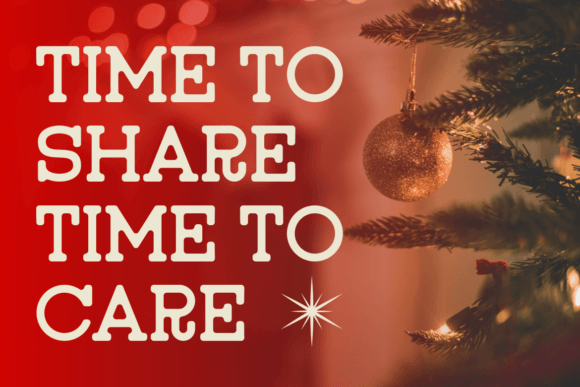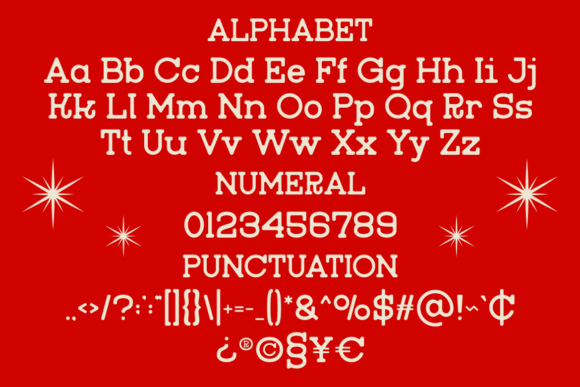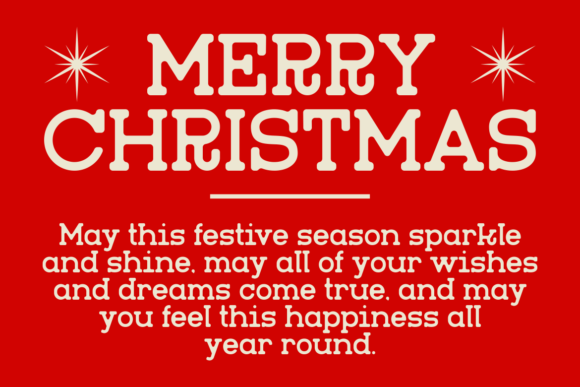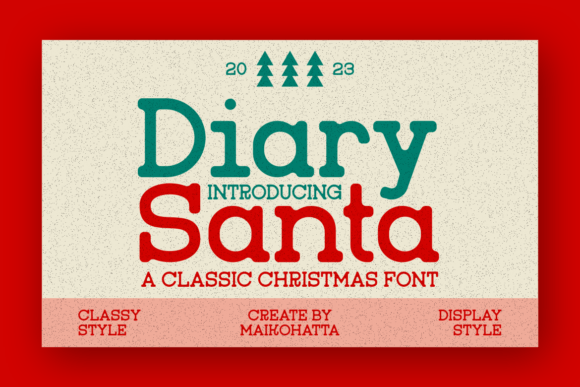
Introduction to Diary Santa Font
This font is specifically designed to create a Christmas atmosphere and mood.
It is often used in graphic design, greeting cards, posters, and various other visual elements related to the celebration of Christmas .
Diary Santa Font offers exceptional quality and versatility, making it a valuable addition to your design toolkit. Whether you’re creating for personal projects or commercial use, Diary Santa Font delivers professional results.